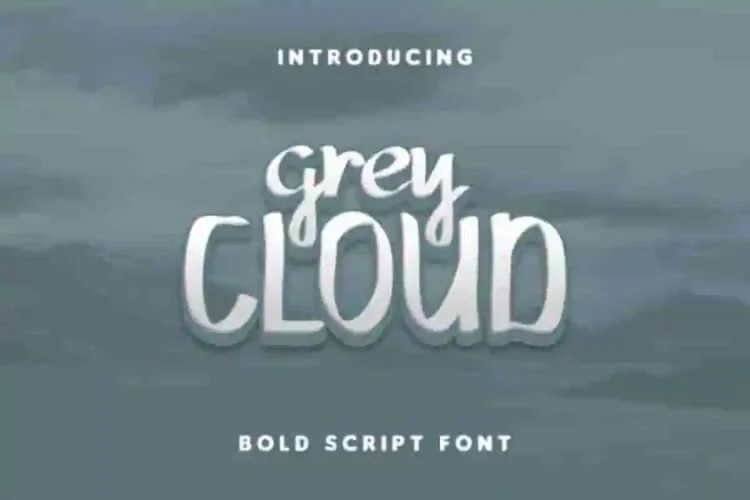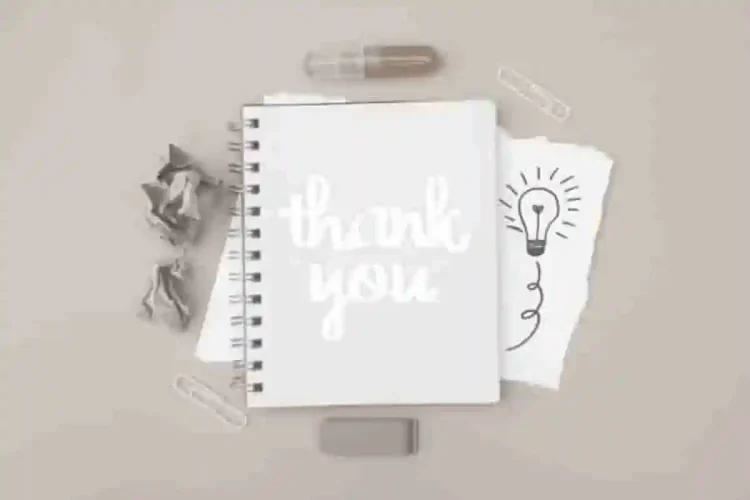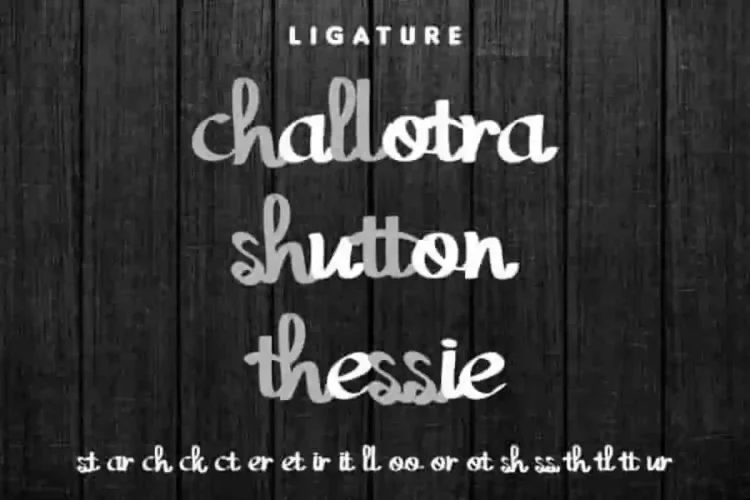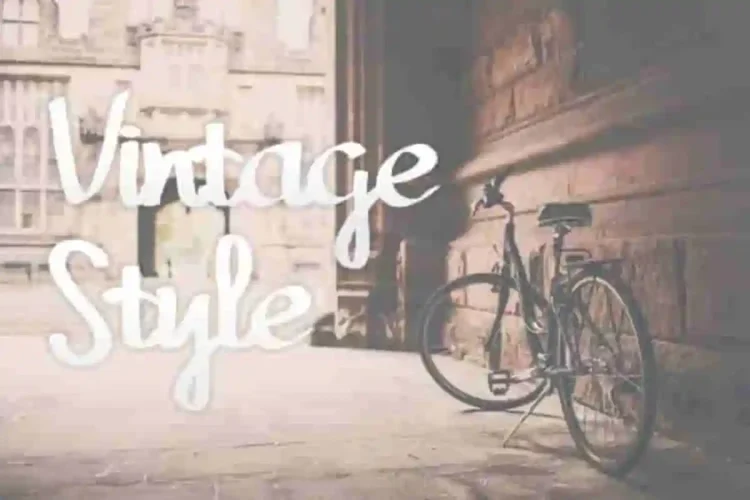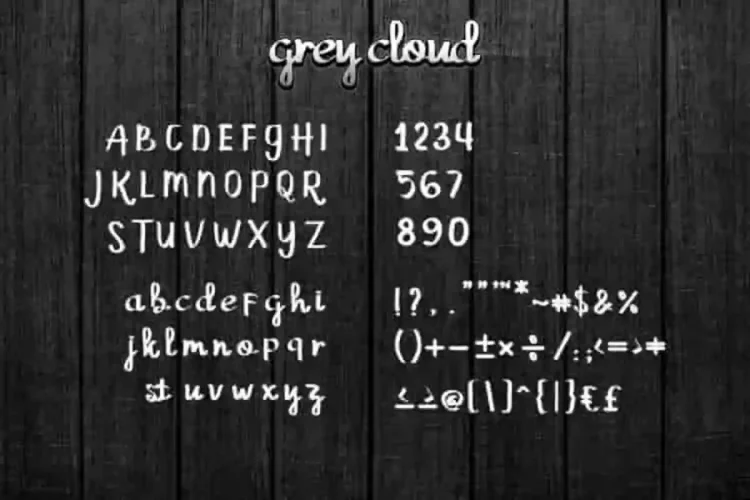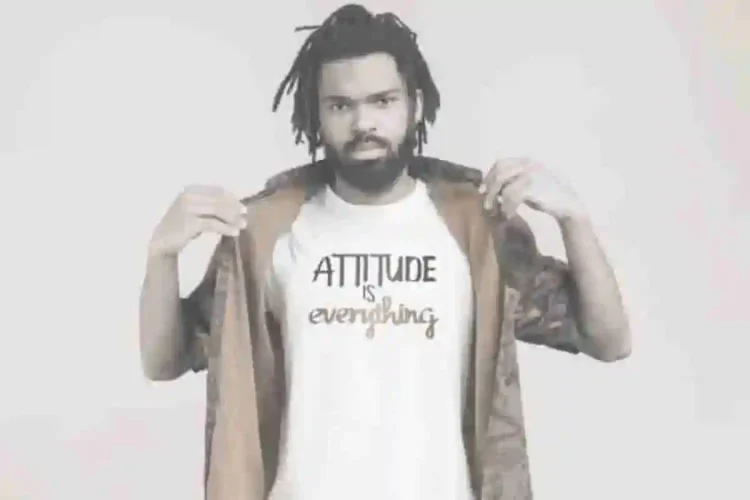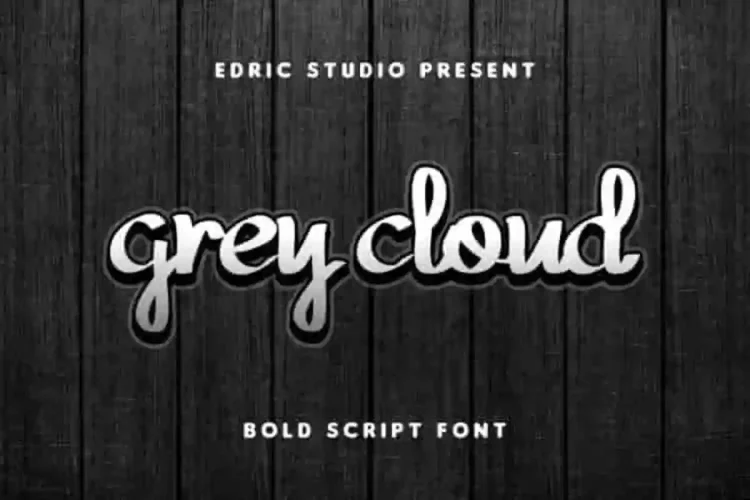
Grey Cloud Bold Script Font
Hello, please meet : Grey Cloud Bold Script Font.
This is a script brush bold font, handcrafted from our Studio here in Bandung and Garut- Indonesia. The artists/designers of this beautiful tyeface is Renata and Sarah Suci.
Grey Cloud Bold Script Font is an exclusive brush script typeface with hand style. This font has a great characters set, perfectly managed with well spaced and kerning.